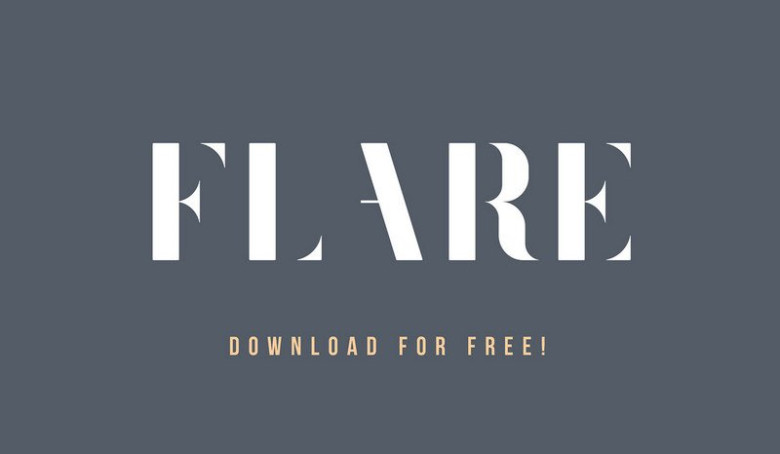
Flare Typeface
Introducing Flare | Free Typeface!. Flare was designed and shared by Mike Hill. Flare is a sophisticated & simple Sans Serif typeface. Works great for logos & titles on a large or small scale. For poster display, book cover, packaging, film cover, greeting card, logo, and more